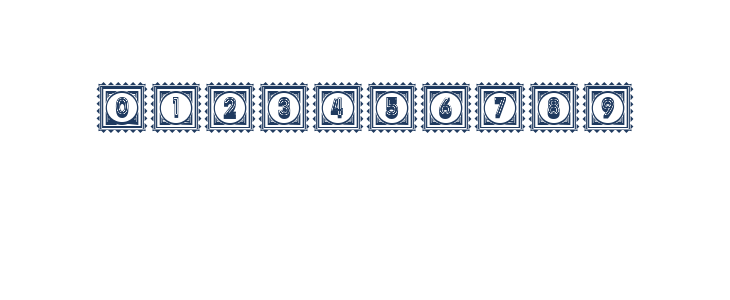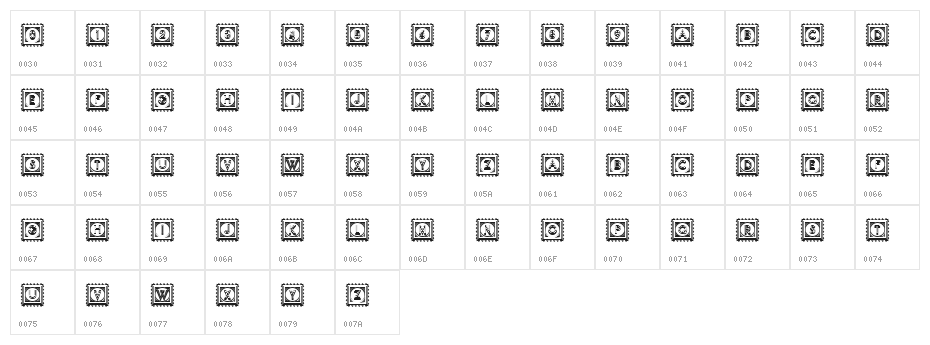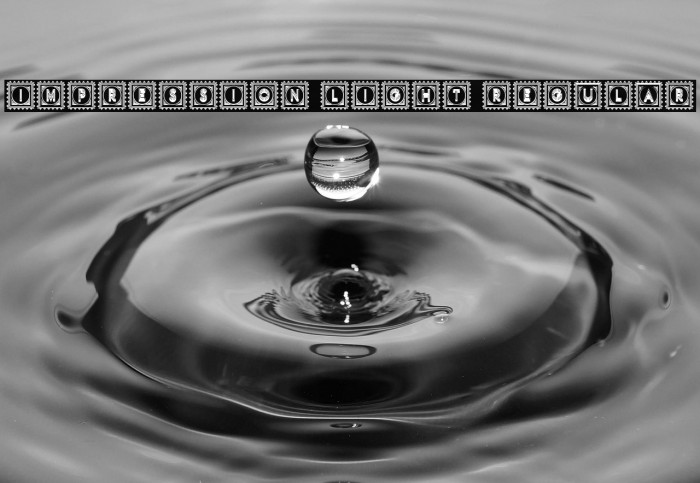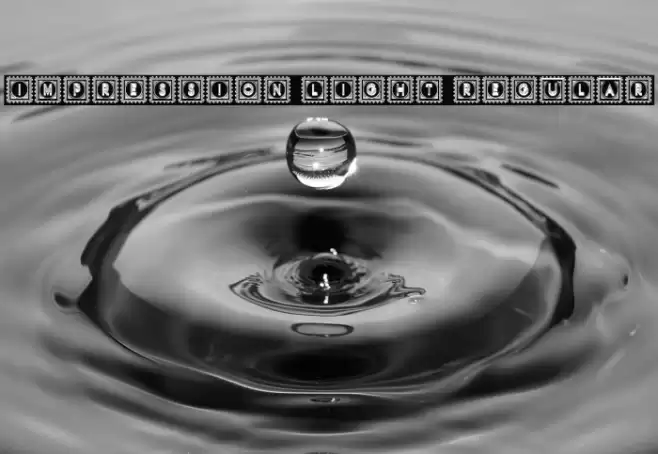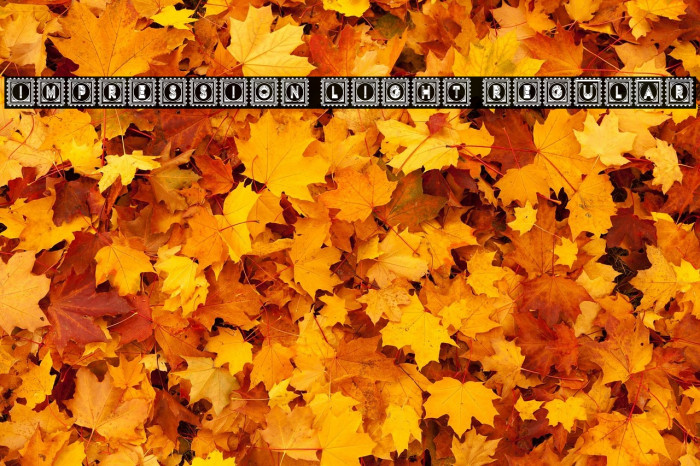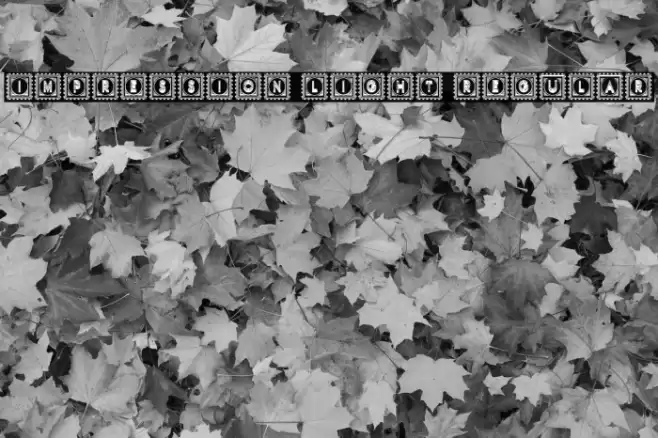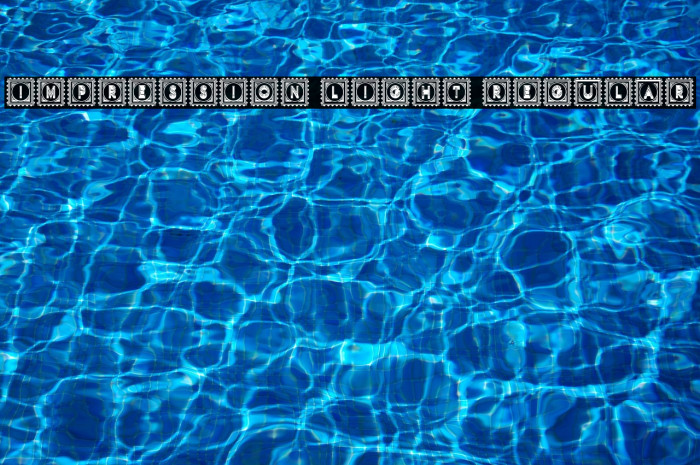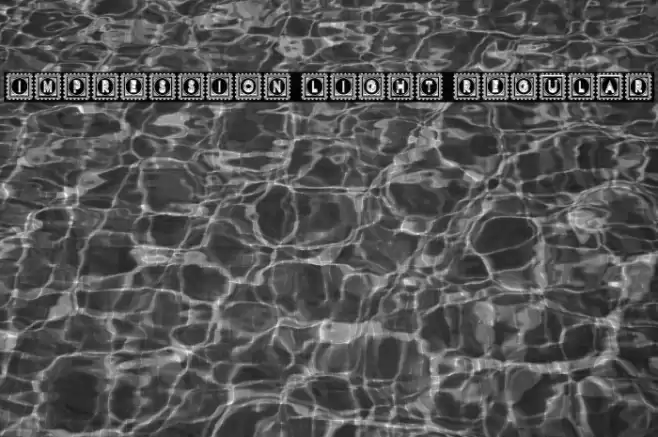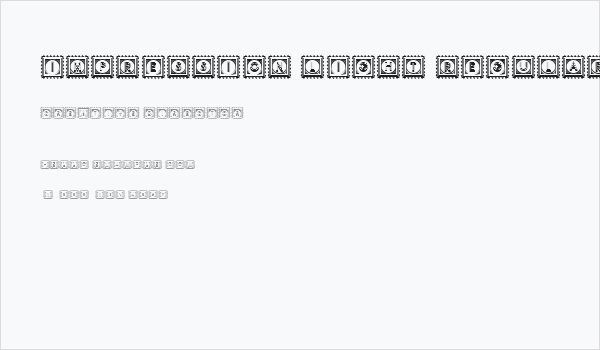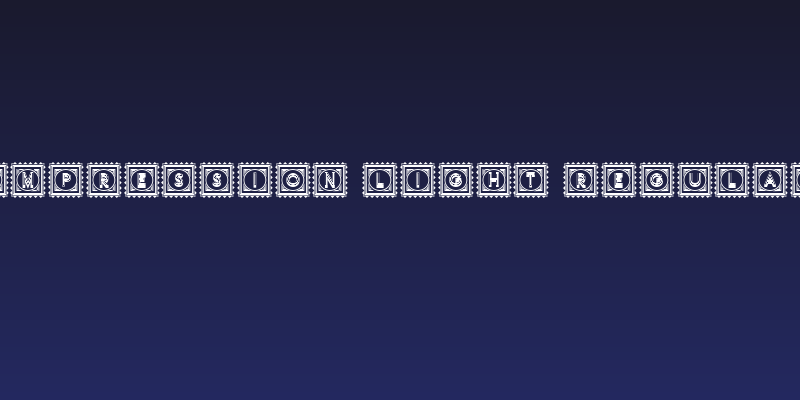
Impression Light Regular Font
Impression Light Regular Description
This font features a decorative and ornate style, with each character enclosed in a square frame resembling a postage stamp. The letters are bold and have a playful, vintage feel, characterized by intricate patterns and embellishments within the frames. The design is consistent across uppercase letters, numbers, and special characters, creating a cohesive and eye-catching appearance. The font's unique style makes it suitable for projects that require a touch of nostalgia or a distinctive visual impact.
| Overall Style | Vintage, Decorative |
| Use Case | Logos, Posters, Greeting Cards |
| Proposed Projects | Ideal for vintage-themed posters, greeting cards, logo designs, and packaging that require a distinctive and playful aesthetic. |